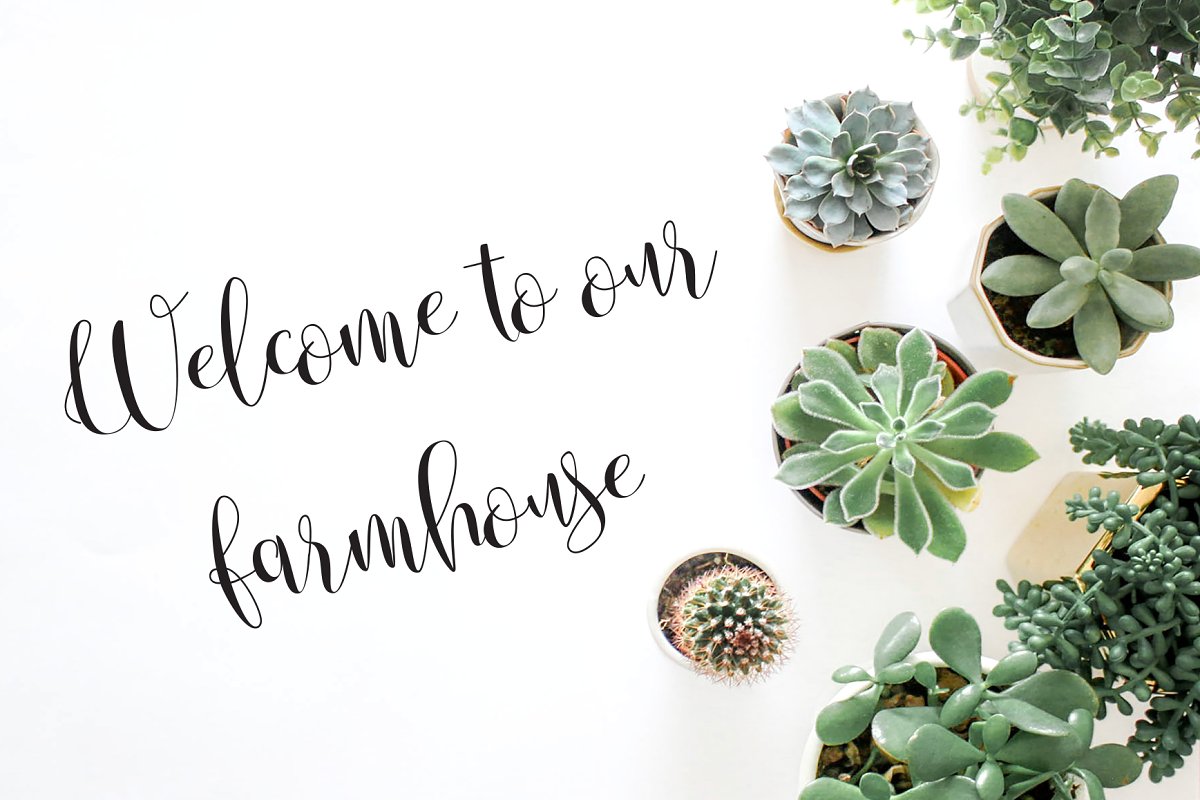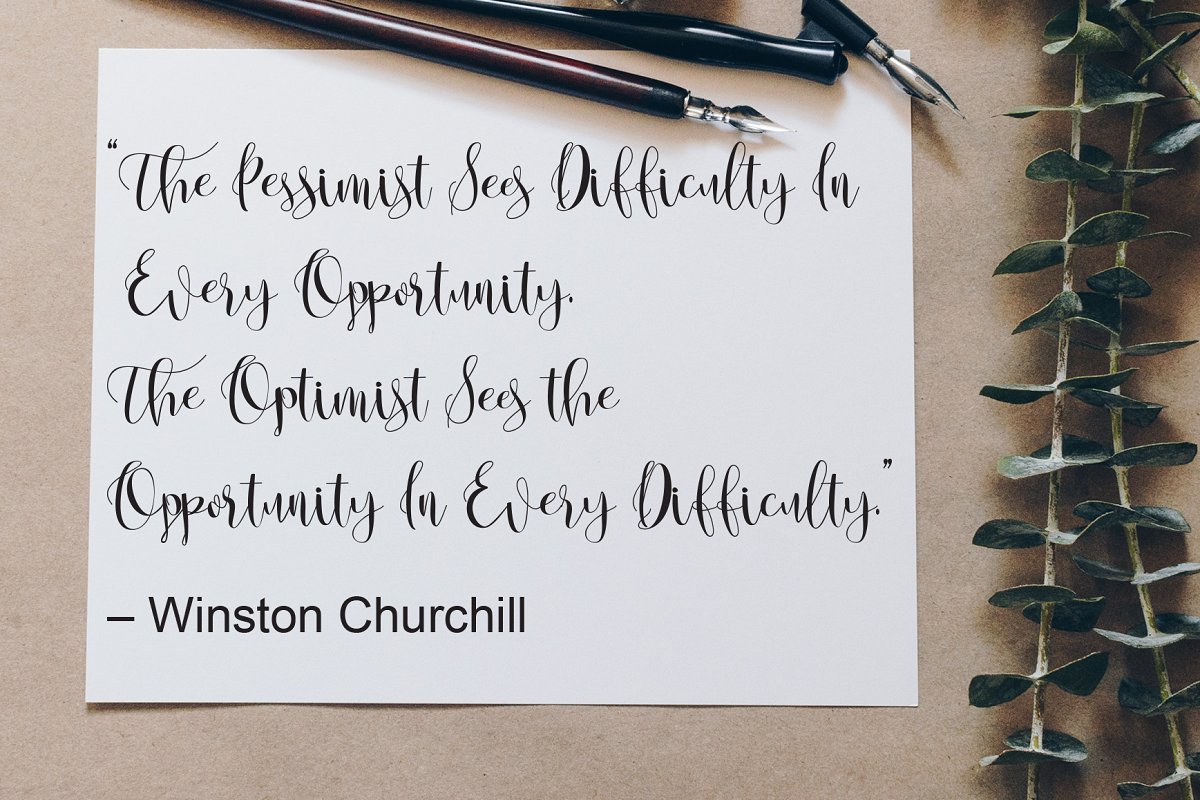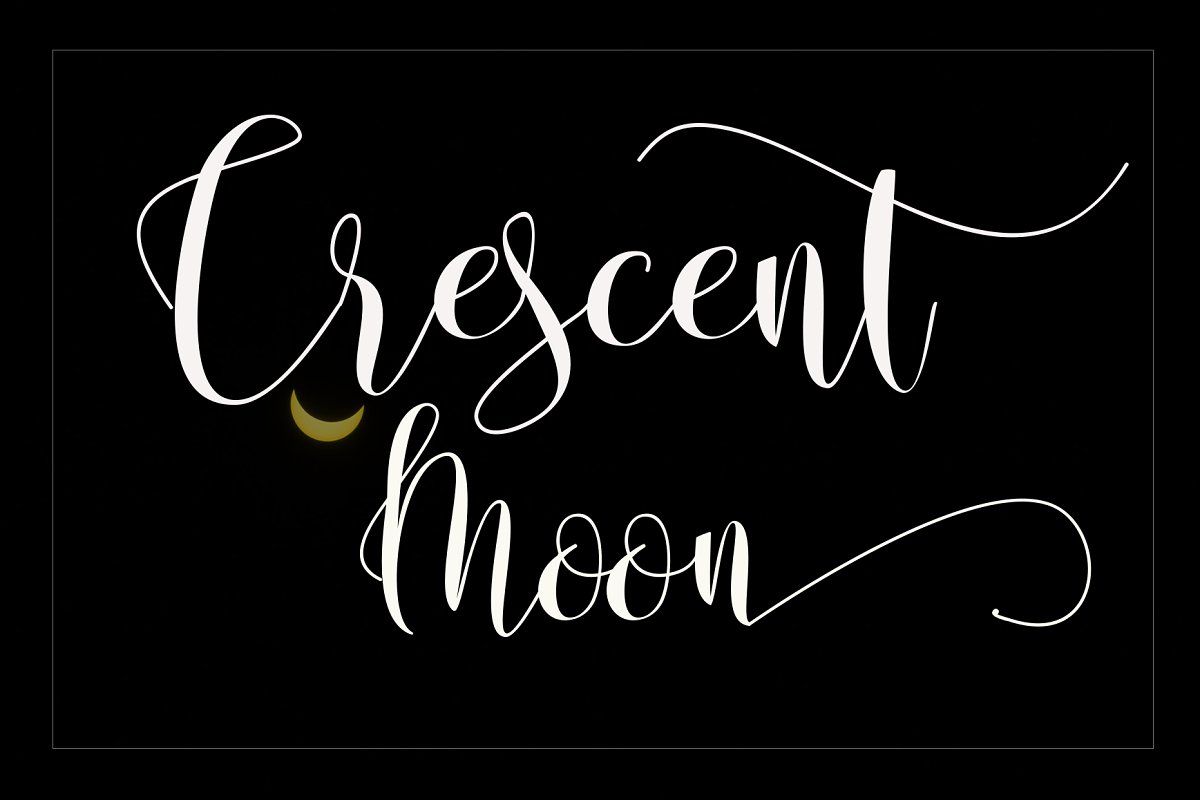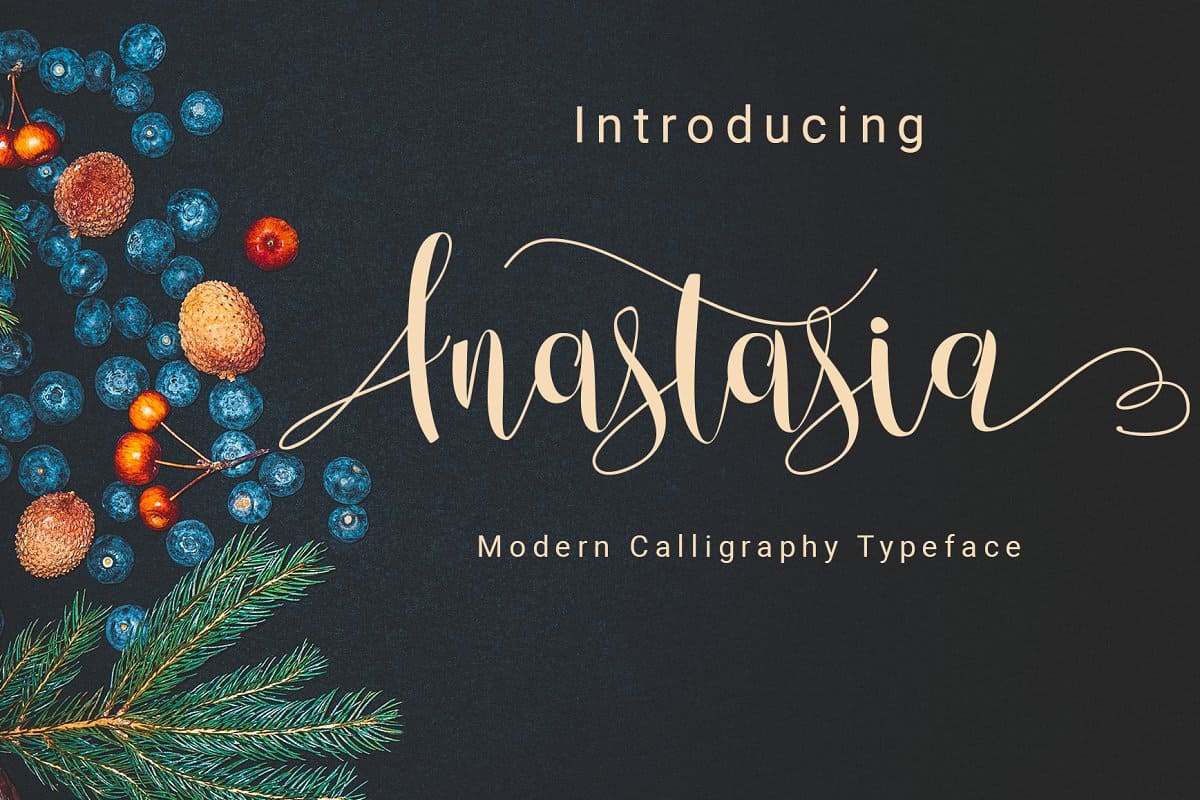
Anastasia Script Font
A font that looks absolutely handwritten and created by hand. This handwritten font is ideal for branding and decorate your any project. Introducing Anastasia Font! AnastasiaScript with the kind of modern hand scratches. It works perfect in the world of weddings, logos, greeting cards, branding, print ads, quotes, signage, magazines etc.